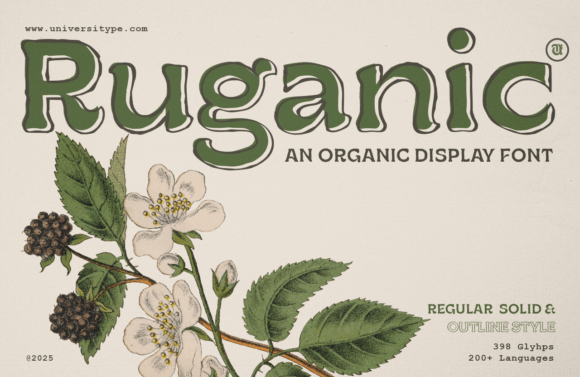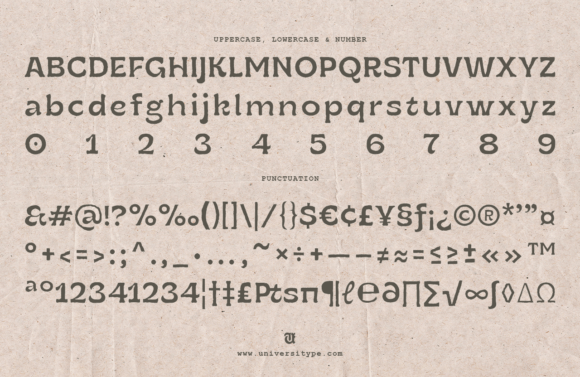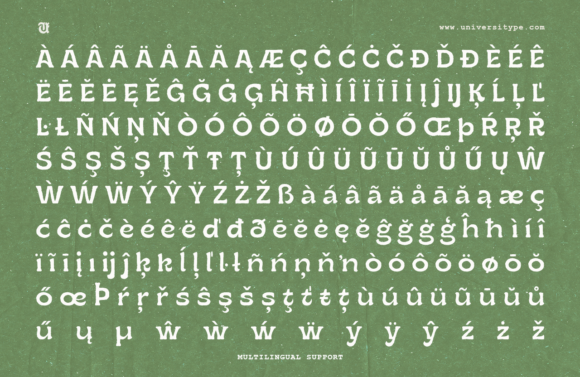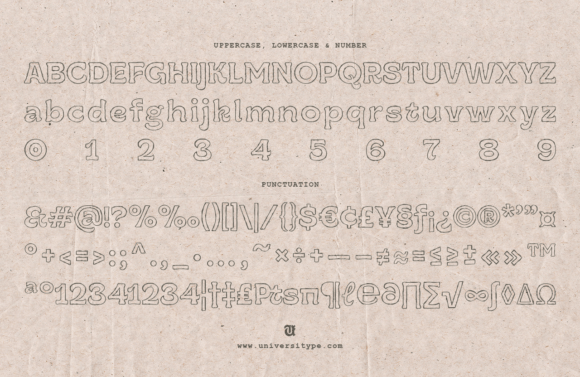
Ruganic Font
Discover the raw beauty of the UT Ruganic font family, a uniquely crafted typeface collection that manifests an organic, artisanal aesthetic to each design slipstream. The charming rustic infusion intermingles flawlessly with modern legibility, paving the way for attention-grabbing visuals that resonate with themes of nature, sustainability, and artisanal authenticity.
Offering a full character set augmented by extended multilingual support, various font weights and styles for boundless design maneuverability, plus decorative elements and alternates to unleash creative sizzle. In addition, the OpenType features cater to sophisticated typography while professional kerning and spacing ensure prime readability.
The UT Ruganic font gleans inspiration from the timeless charm of vintage botanical visuals and the artistry of hand-lettered signage historically adorning natural product packets. The creators aimed to encapsulate the soul of organic forms, transforming them into a practical typeface that paints a picture of genuine authenticity and craftsmanship.
Visualize the UT Ruganic font family as the leading character in natural and organic brand identity, food packaging, cosmetics, wellness products, editorial headlines, environmental graphics, and signage. Its diverse flexibility also allows it to feature as part of digital content creation on social platforms and websites.